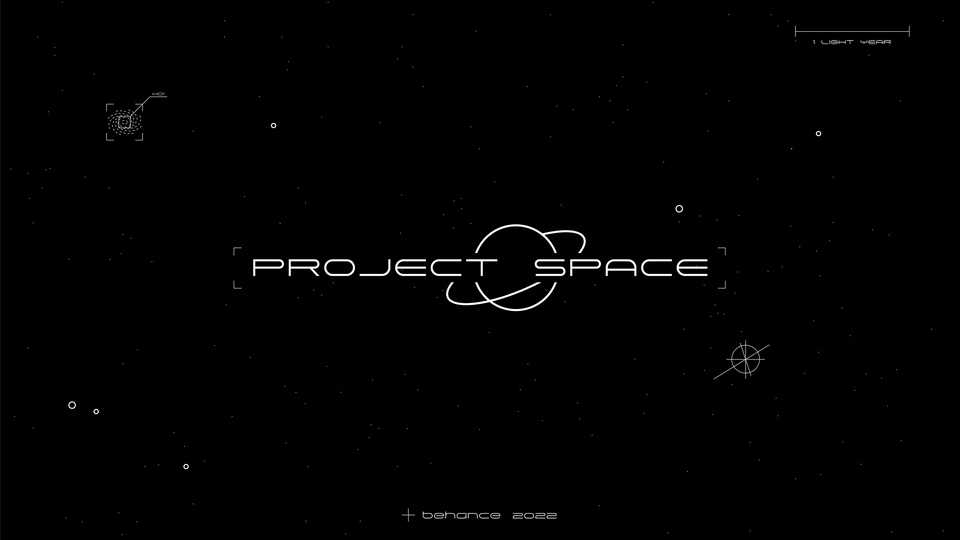
Download Project Space font, a modern display typeface inspired by two things: the so-called spaggification (stretching of objects near black holes) and space tourism. Project Space font has Latin, Cyrillic and symbols for writing mathematical formulas.
Designer: Ver Wave